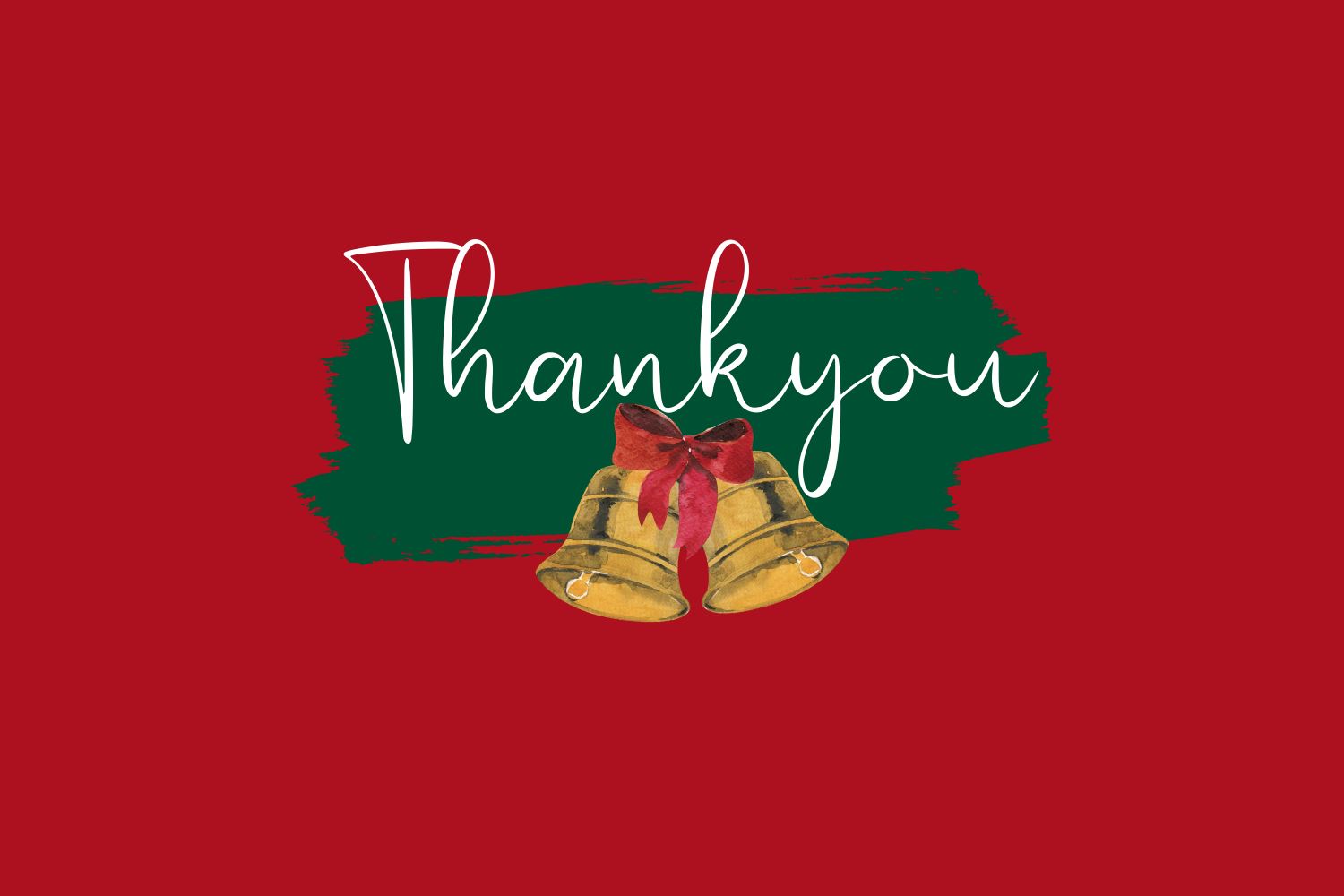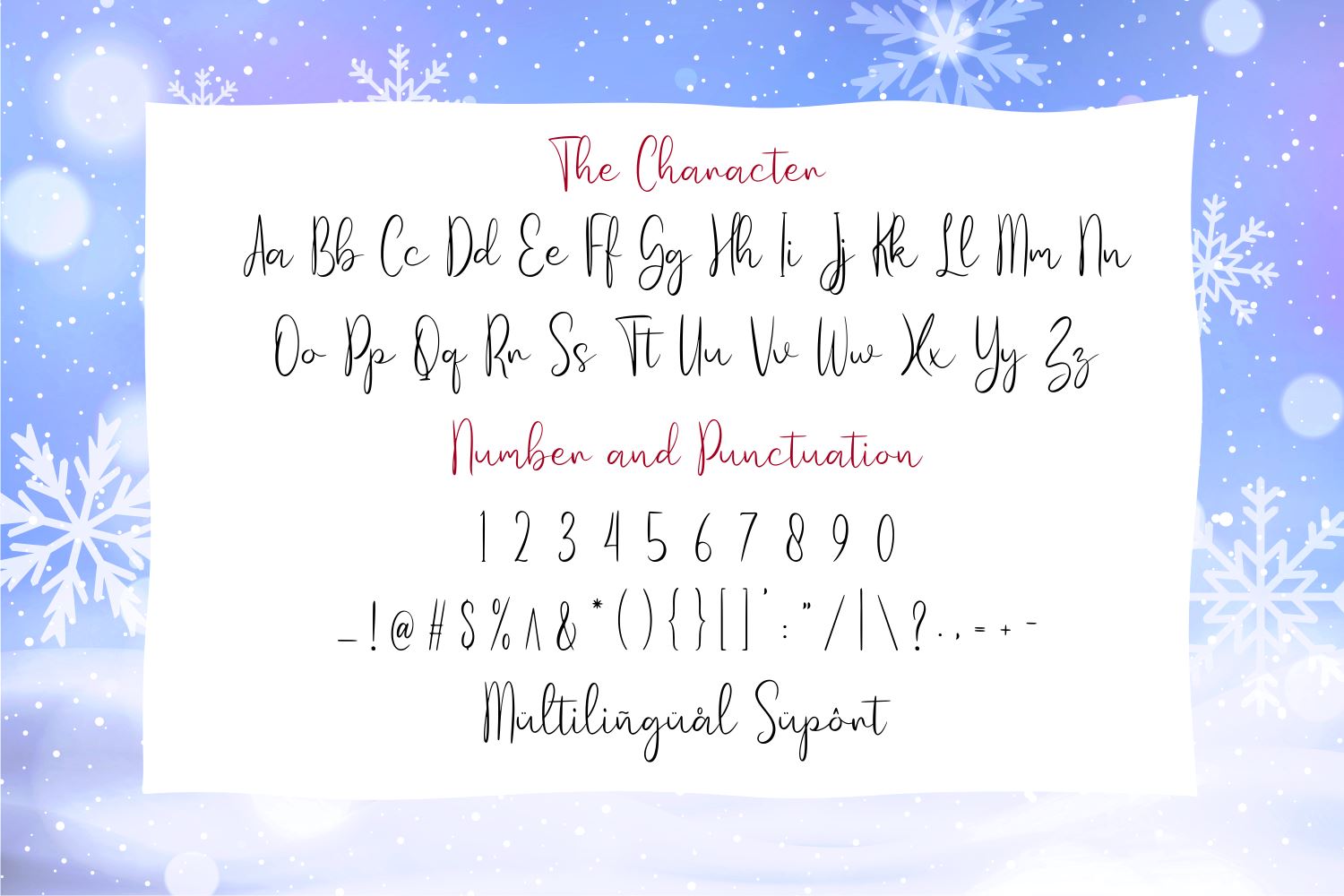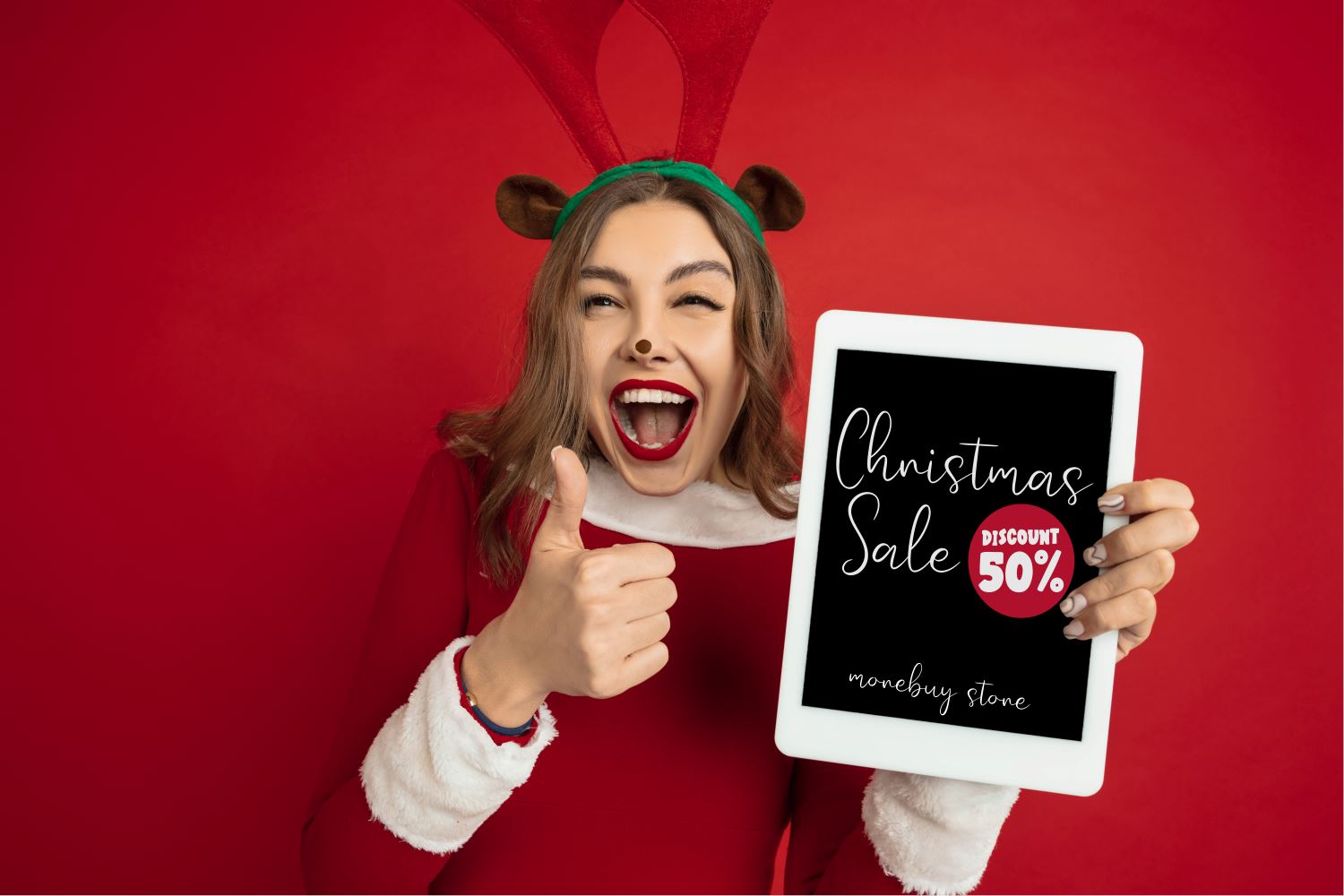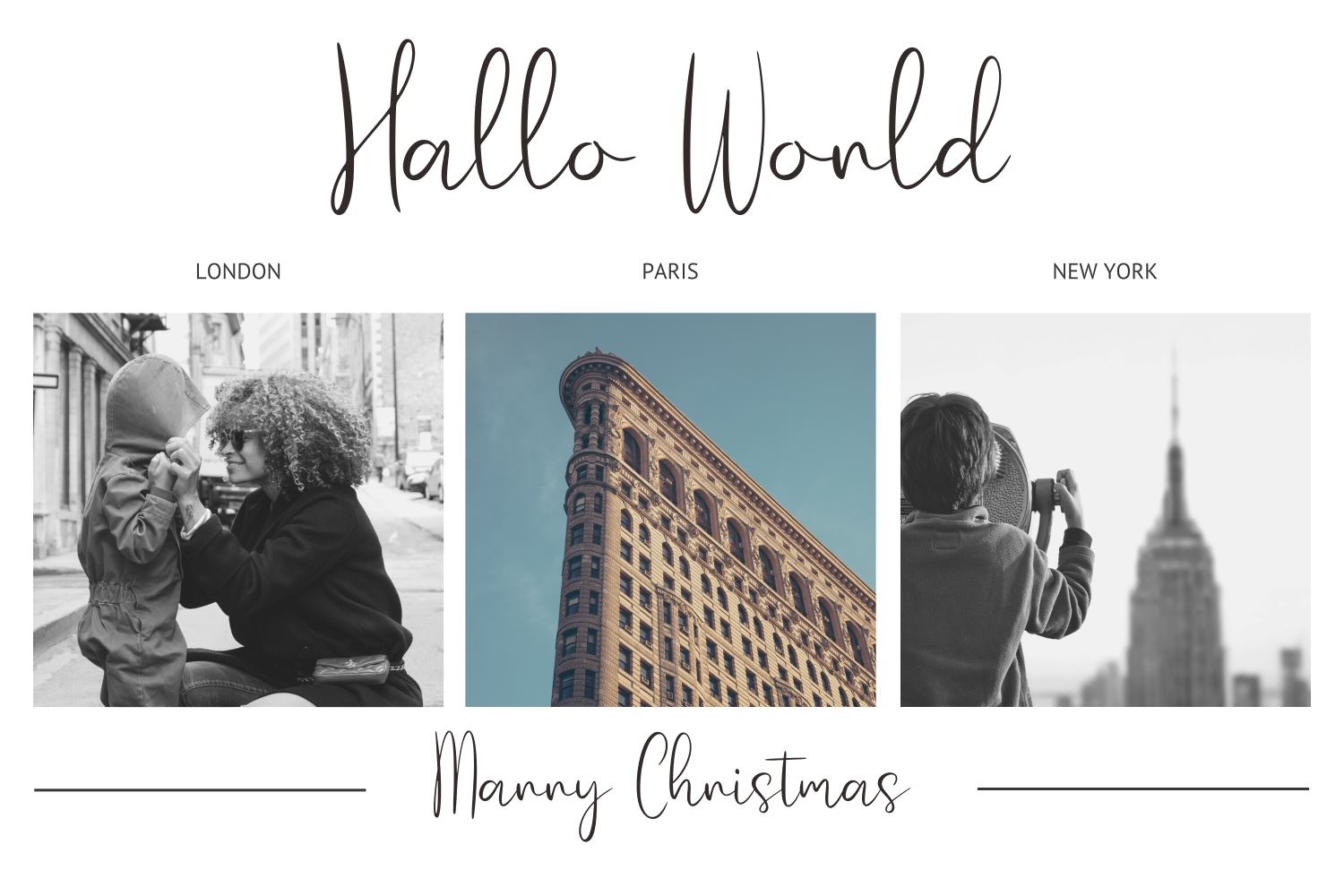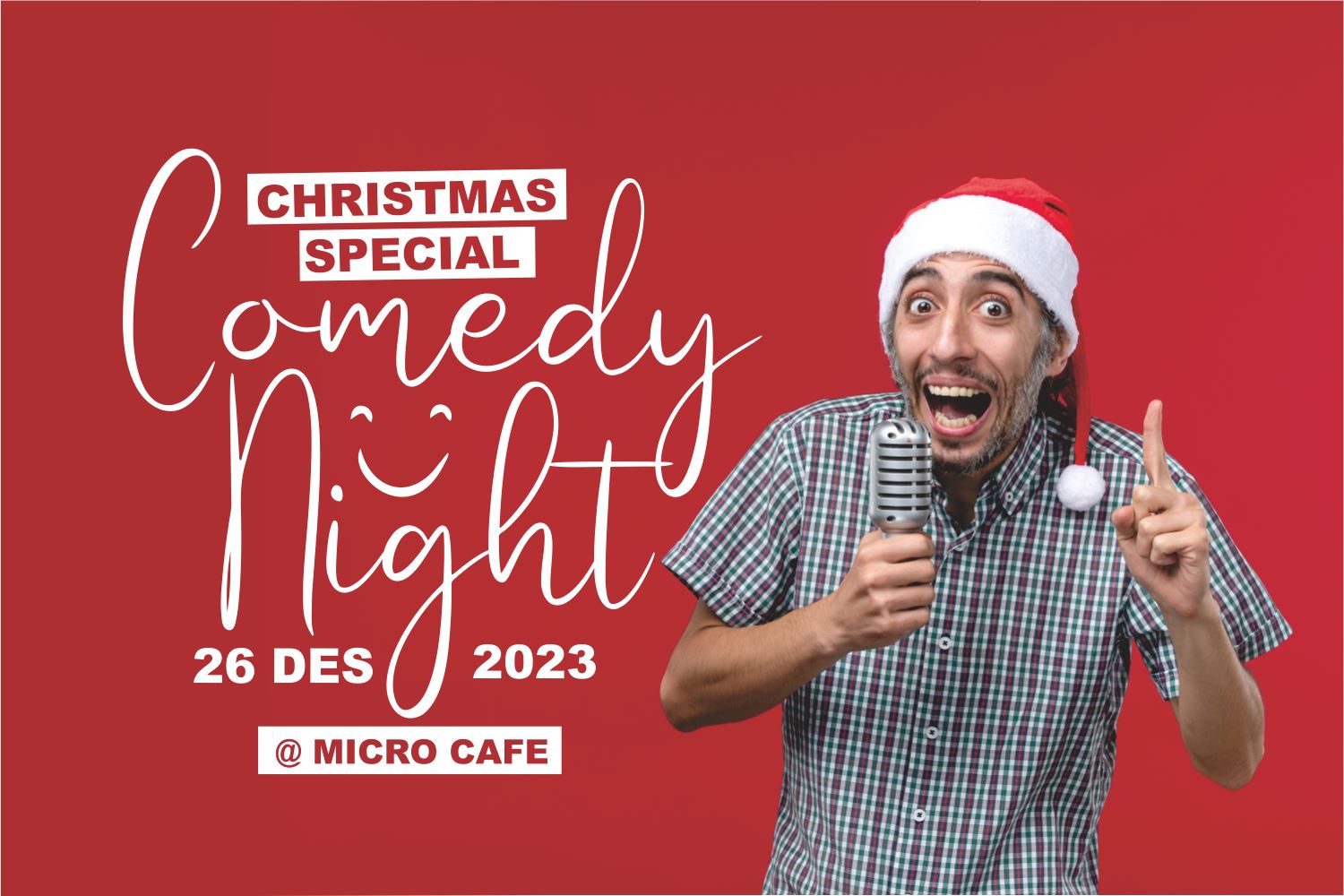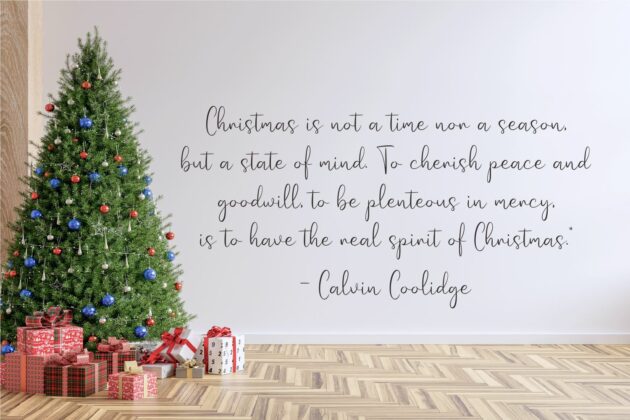
Warm Christmas
About Warm Christmas
IntroducingWarm Christmas Font by Forberas Club Warm Christmas is a Modern Handwritten Font. Warm Christmas is perfect for book cover, product packaging, branding project, megazine, social media, christmas party fonts, or just used to express words above the background. This font includes TTF and OTF, This font also multilingual support.